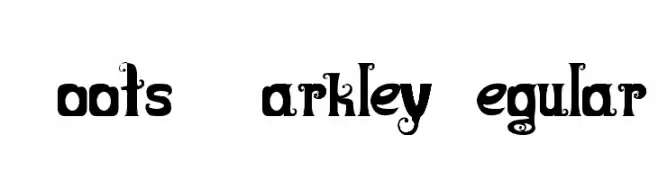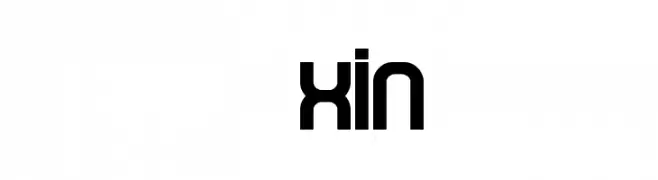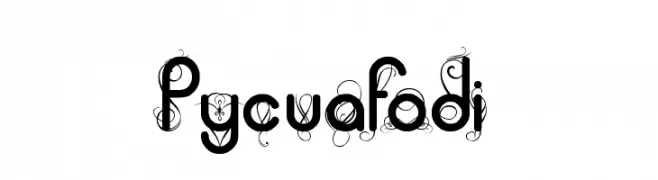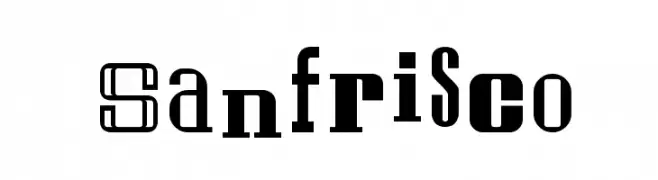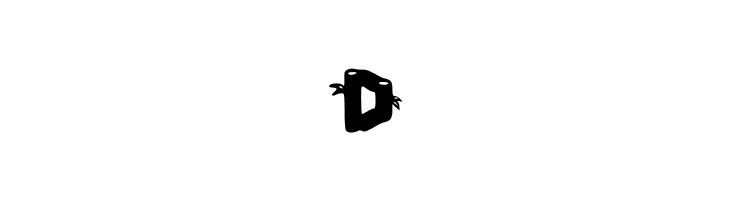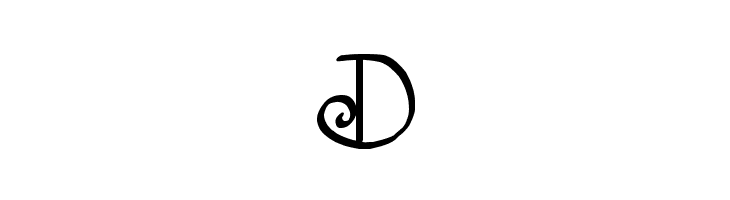
A bold, eclectic font with a mix of modern and vintage elements, featuring unique character designs.
An ornate, decorative font with intricate swirls and embellishments.
A whimsical script font with decorative flourishes and playful embellishments.
A playful, handwritten font with smooth, flowing characters and a friendly appearance.
A whimsical and decorative font with intricate swirls and curls.
A modern, geometric font with bold, rounded characters and tight spacing.
A bold, calligraphic script font with dynamic, sweeping strokes.